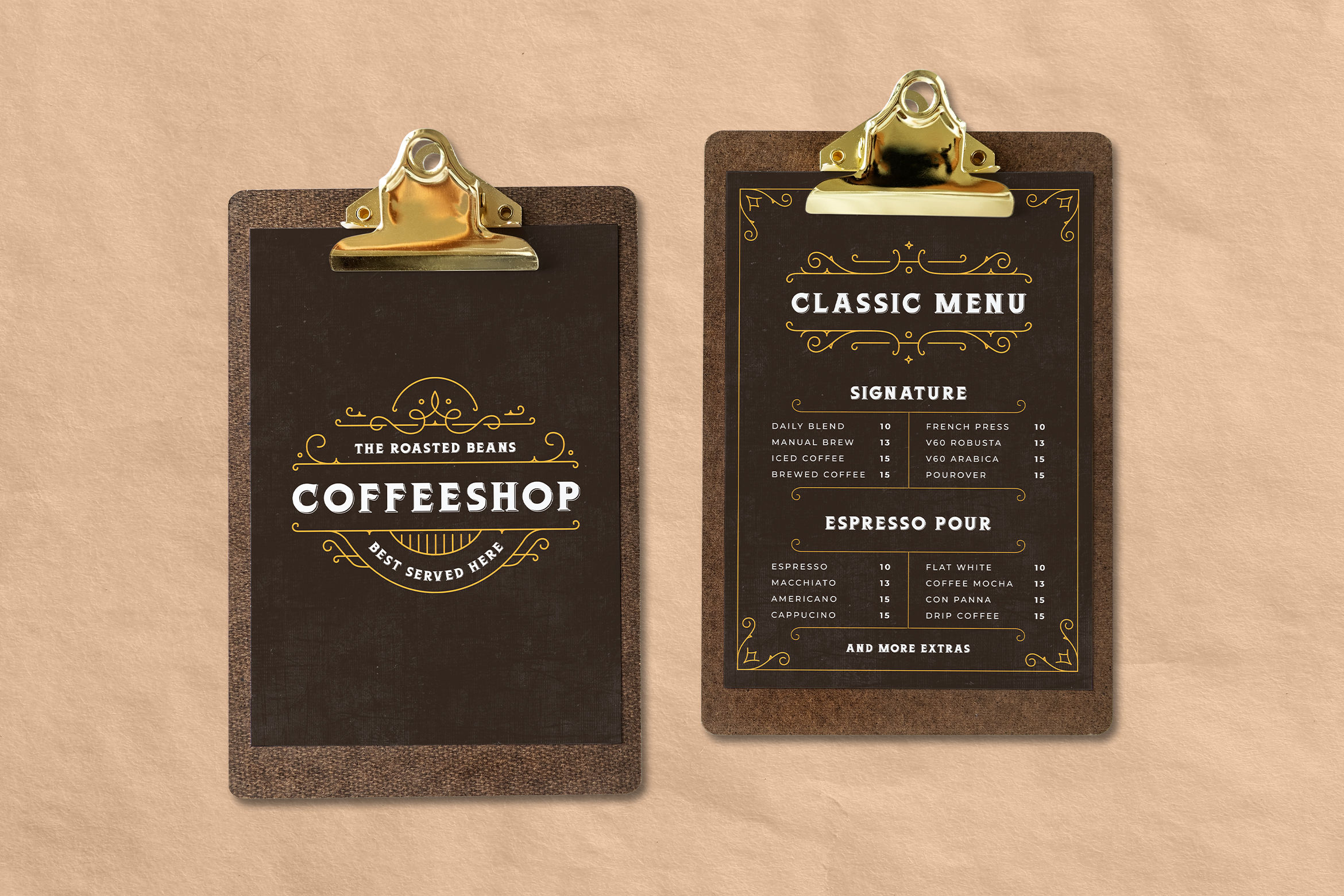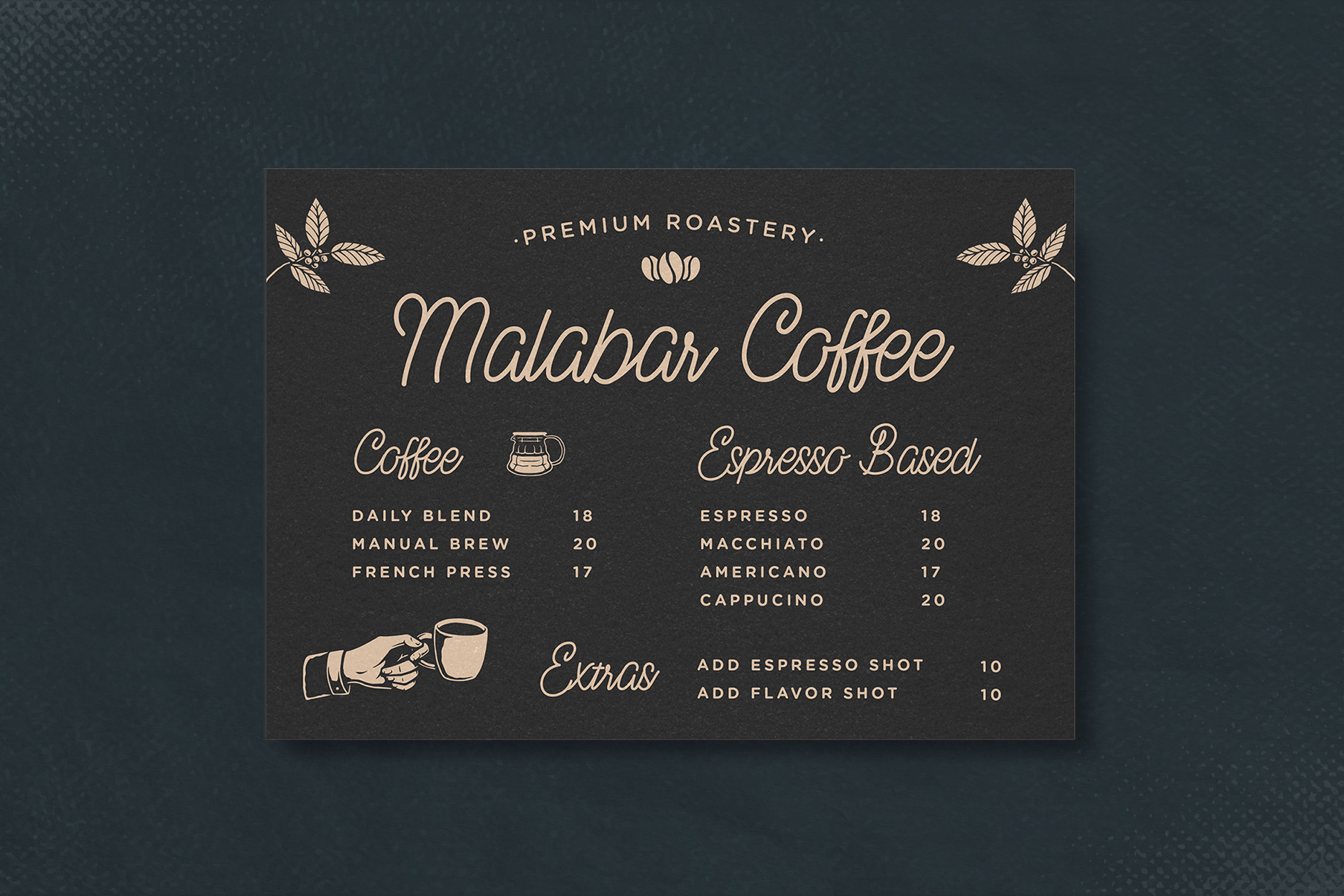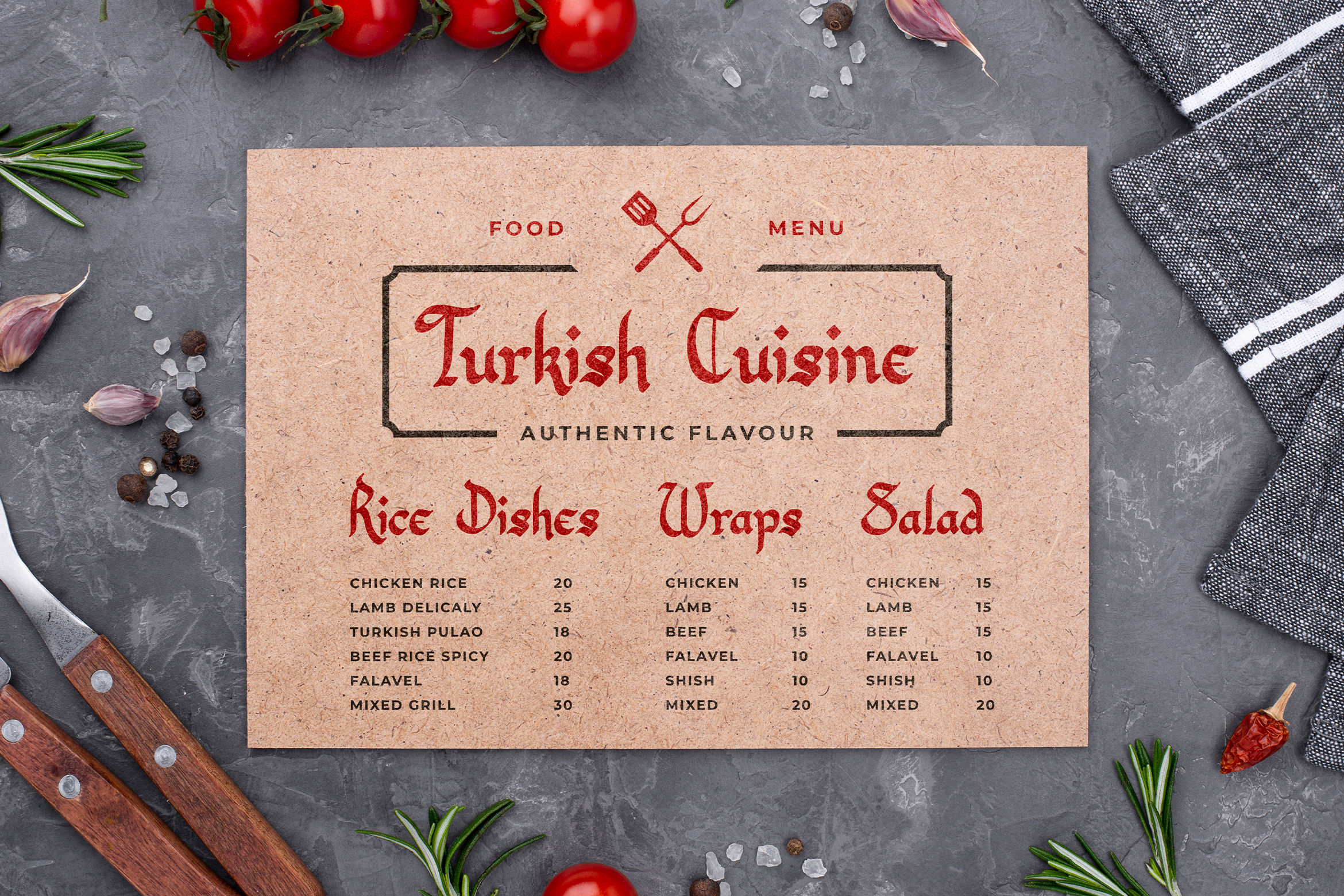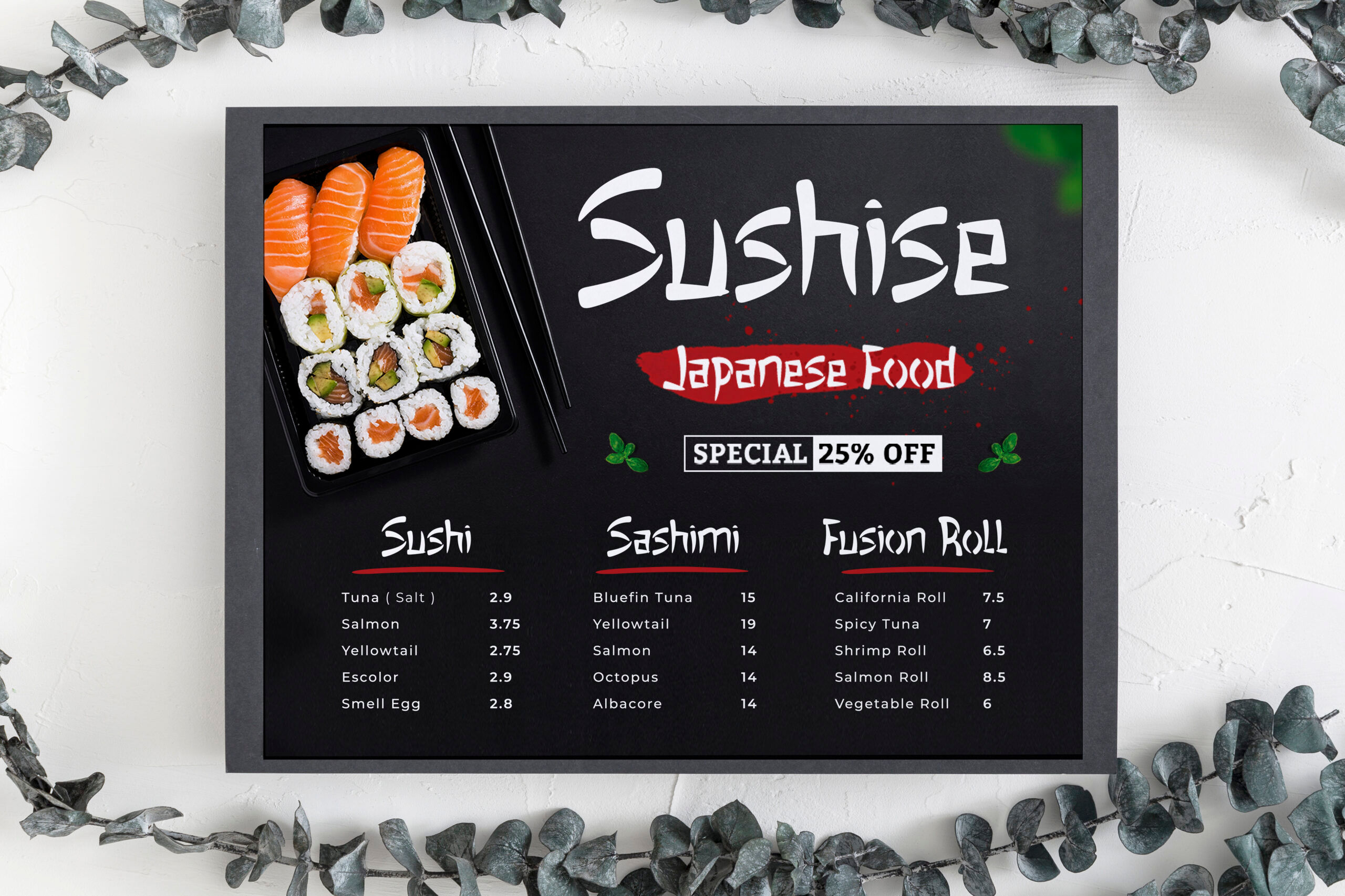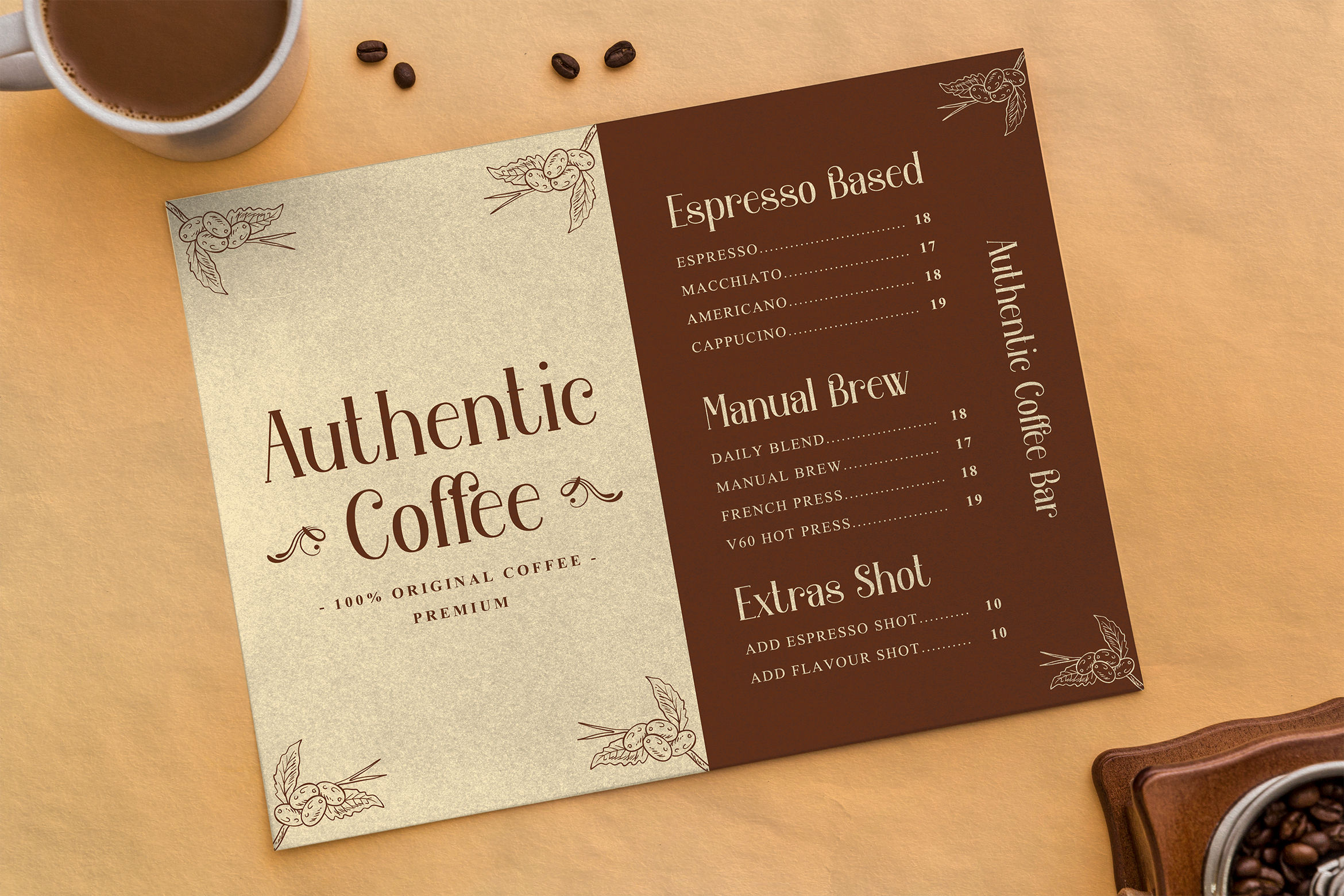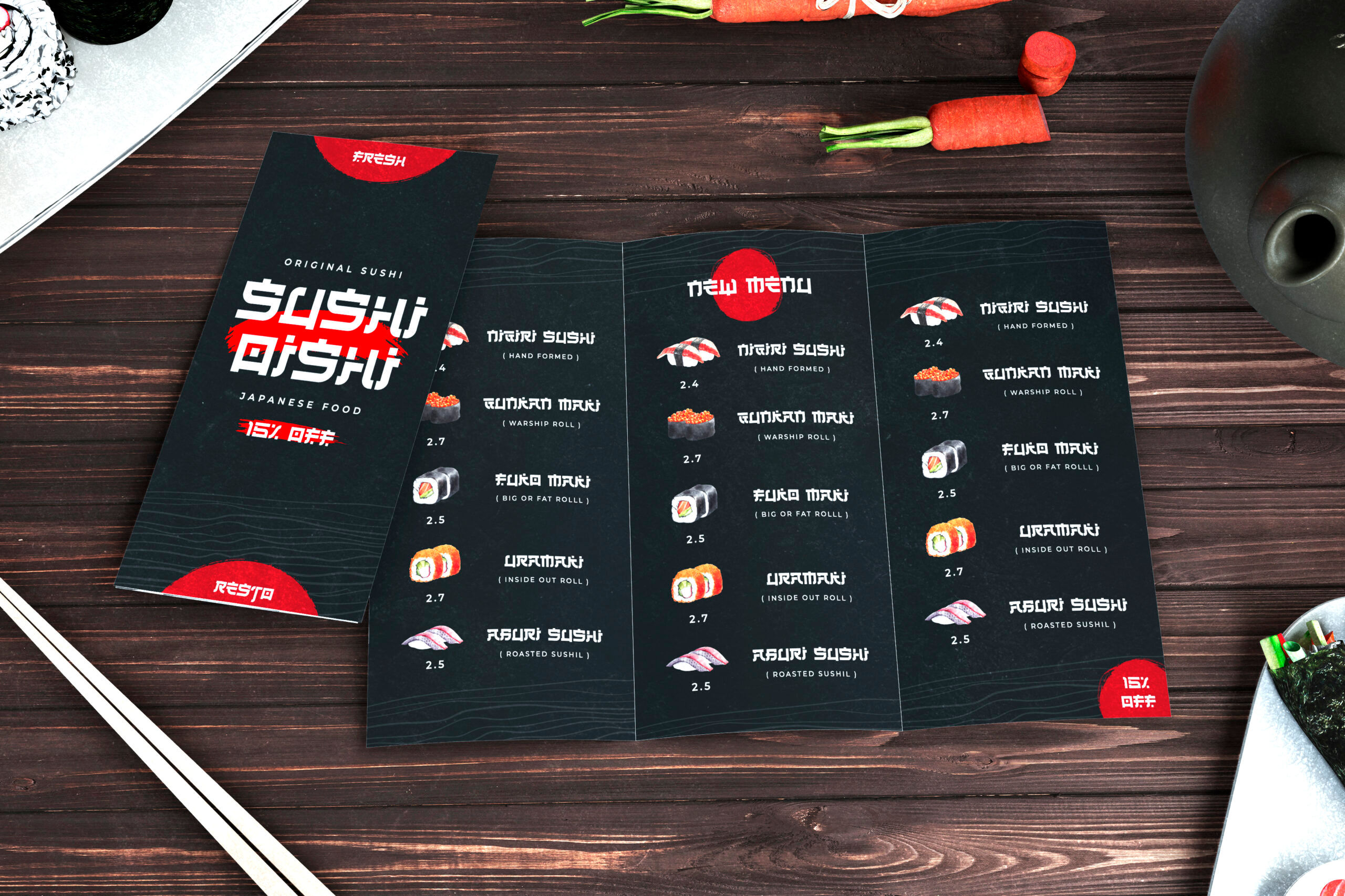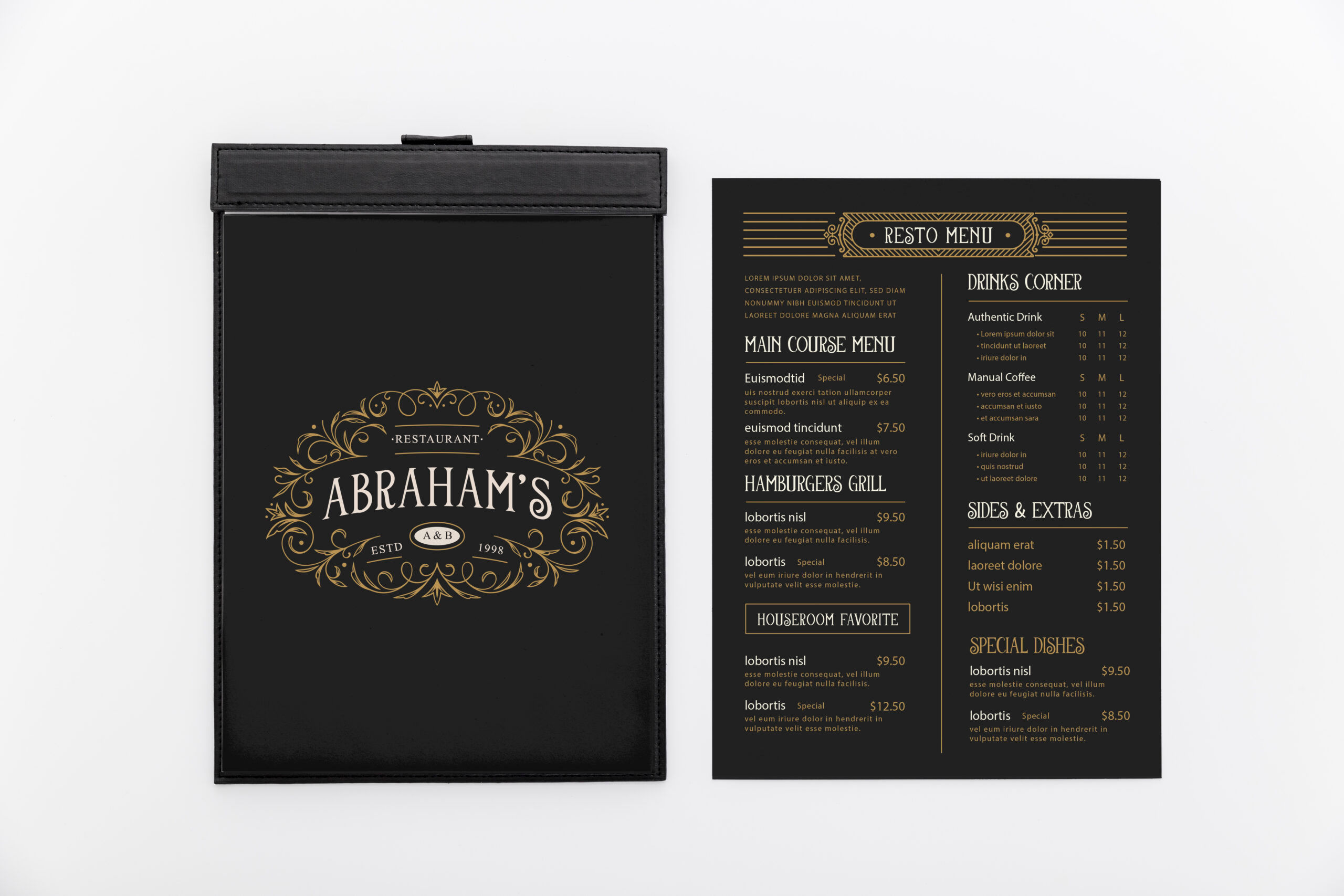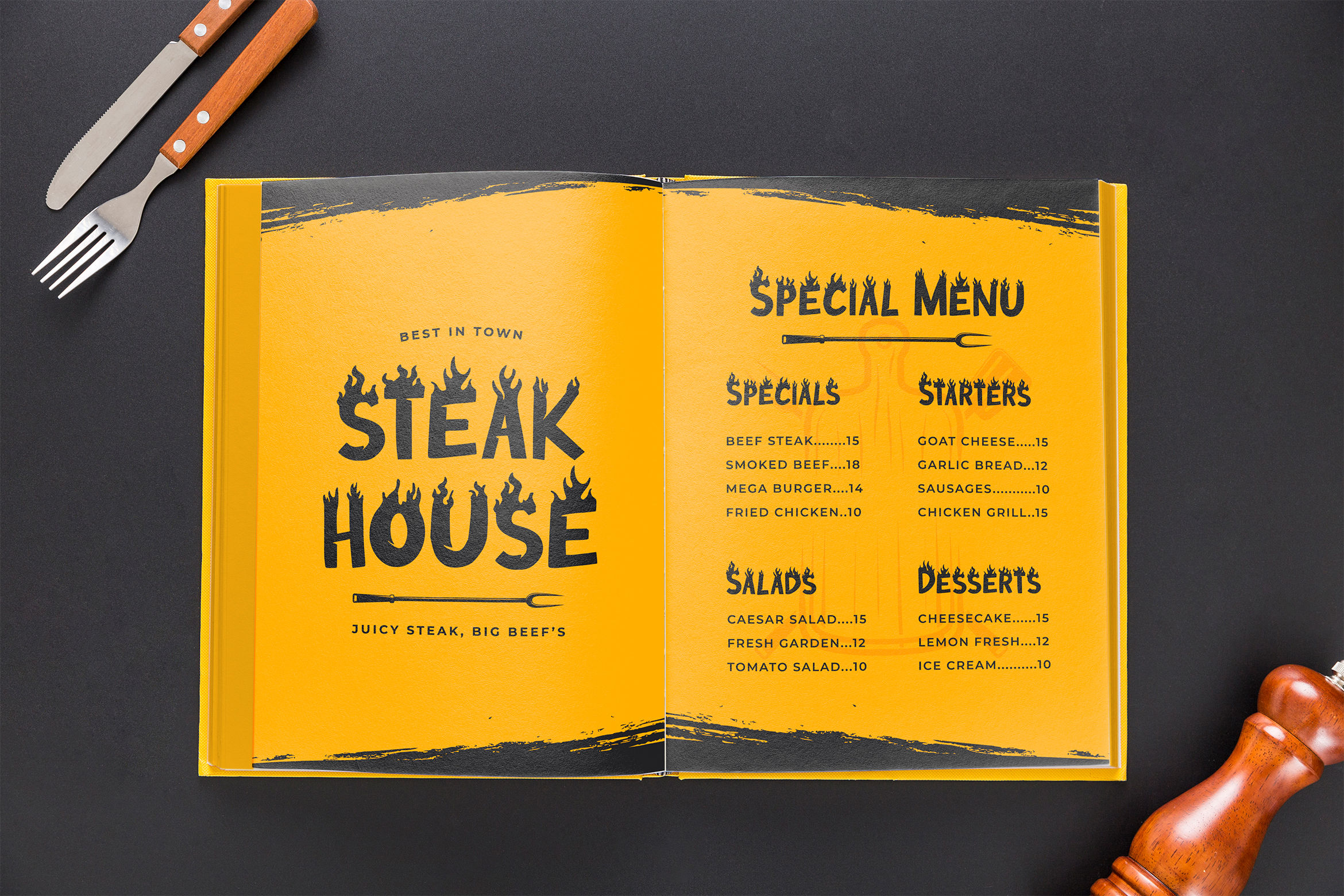
12 Best Fonts For Your Restaurant Brand and Menu Design
If you are looking to update your restaurant brand and menu design this year, there’s no shortage of great fonts online for you to use. Keep reading as we share twelve of the top fonts, all of which are ideal for selling food and beverages in your restaurant or café.
Kana & Hana – Vintage Monoline Script
Kana & Hana is a beautiful font that is ideal for a coffee shop’s menu. With smooth characters and a vintage look, it would be great for your menu and restaurant posters. You’ll create a laid-back look whenever you use this font, making your restaurant look and feel more welcoming to your visitors.
Javanica – Vintage Display Font
For a vintage display font, look no further than Javanica. This font is perfect for Western food and coffee menus and was inspired by classic posters of the past. As well as applying this font to your restaurant menu, we think it would be perfect for posters, merchandise, and letterheads.
Semur – Vintage Display Font
When updating your packaging, it can be hard to find the right font to attract attention to your products. Semur is a vintage display font that was created by hand and inspired by classic posters. With both uppercase and lowercase letters and every symbol you could need, it would be a great option for your company logo or to add to your apparel and merchandise this year.
Orchard Song – Decorative Serif Font
Decorative fonts are ideal for coffee shops, menus, packaging, and much more. Orchard Song is one of our favorite decorative fonts and has a relaxed and musical theme. It’s one of the most versatile fonts for restaurant owners, and you’ll find it comes in handy on any print material you need to design.
Steak House – Display Burn Font
When you’ve got a special offer going on in your restaurant, you need a way to attract customers to this promotion. Steak House is ideal for creating promotional materials and would be the perfect choice for a poster sharing your latest offer. On top of that, it’s a good option for steak and BBQ restaurants or for anywhere serving spicy food.
Murasamu – Oriental Brush Font
Murasamu is an oriental brush font that would look great on an Asian restaurant’s menu. While this font is more ornate than other options, it’s still easy to read and will help your menu to stand out from elsewhere.
Renji – Japanese Font Style
For a distinctive font for your Japanese restaurant’s menu, try out Renji. It would be ideal for your menu, logo, and posters and will help to create a cohesive theme throughout your restaurant.
Fire Ace – A Fiery Display Font
Fire Ace is a fiery display font that is perfect for promoting a restaurant serving spicy food. While it gives your menu a dangerous and exciting feel, it’s still easy to read and great for modern restaurants.
Shayan – Arabic Font
Middle Eastern restaurants can update their menu this year with Shayan, an Arabic font that will reflect the cuisine you are serving. It’s inspired by the Arabic culture but is still easy for a global audience to read.
King Malik – Turkish Font
Another option for anyone who owns a Middle Eastern restaurant or serves this type of cuisine is King Malik. This Turkish font is bold and clear, so it would be a good option for your branding and menu.
Mexican City – A Slab Serif Display Font
Mexican restaurants are incredibly popular in most cities, but you need to ensure you are doing everything you can to stand out from other establishments. Mexican City is great for food and snacks from this region of the world and is good for both formal and non-formal uses.
Shufen – A Chinese Font
Shufen will add a striking touch to any Chinese restaurant, yet it is easy for your patrons to read and select what they want to order from your menu. It helps to set the tone from the moment someone walks into your restaurant and will ensure they are generous with their order from your menu.
As you can see, there are so many great options on offer when it comes to updating your restaurant menu. You’ll find that all of these fonts have different styles, so you’ll be able to create a restaurant menu that’s reflective of your brand. The right font can help influence your customers to dine in your restaurant or café, so make sure you take the time to find the best option to fit your needs this year.